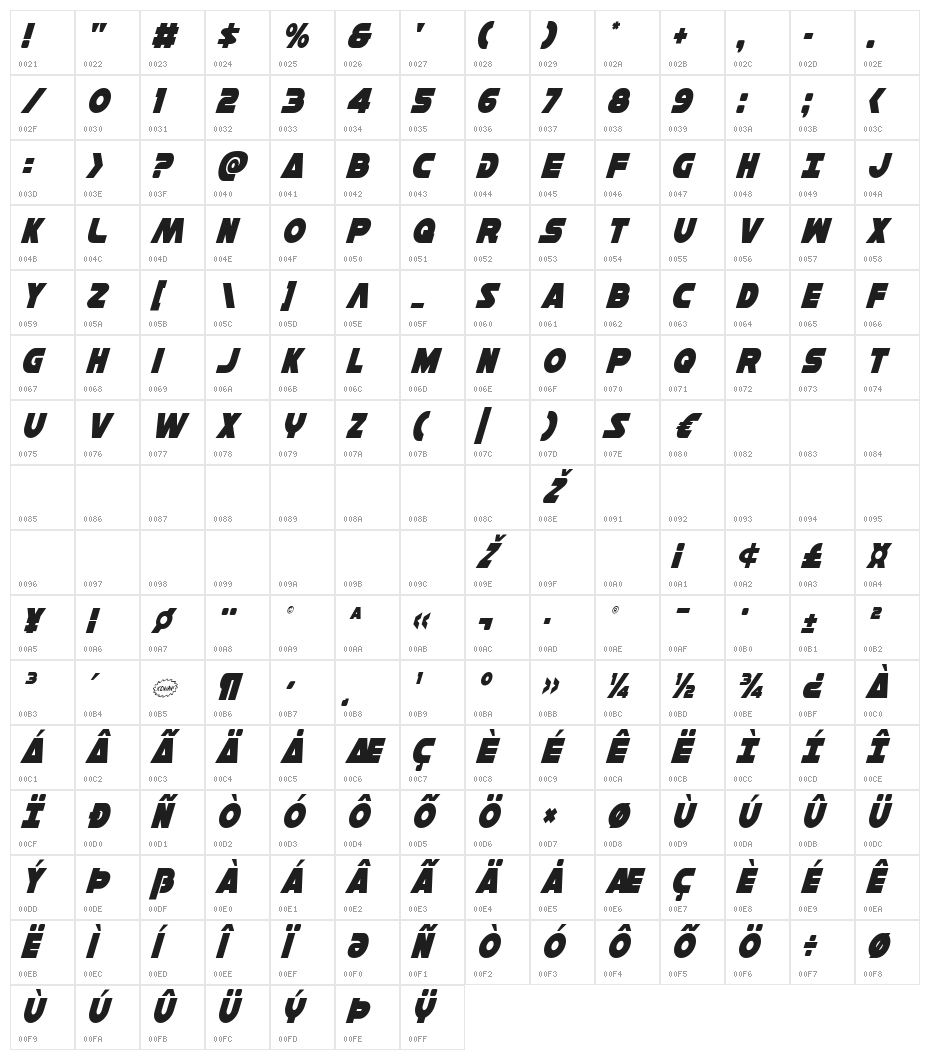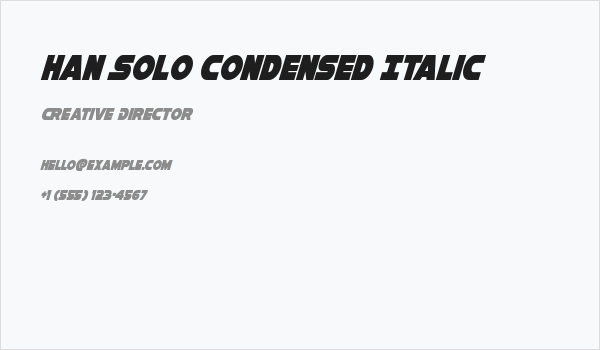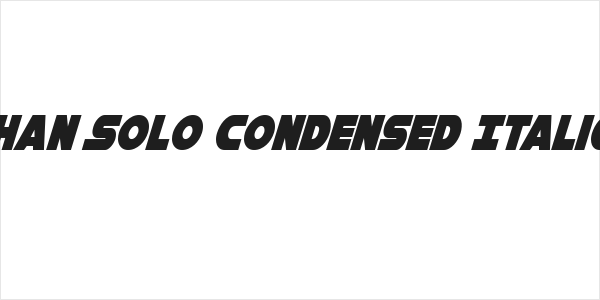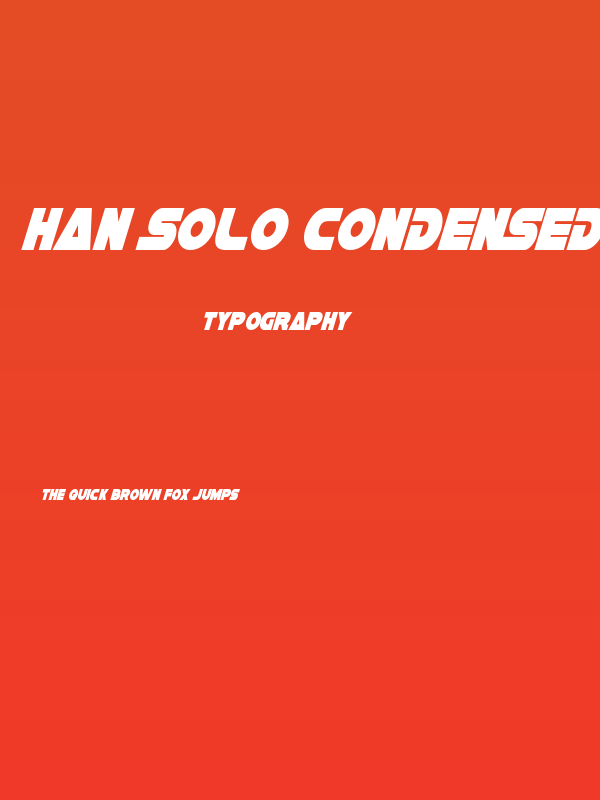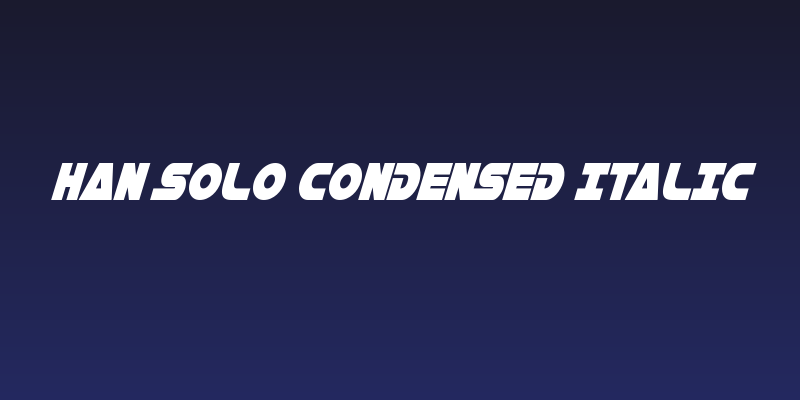
Han Solo Condensed Italic Font
Han Solo Condensed Italic Description
This font features a bold and dynamic style with a condensed and italicized form. The characters are designed with sharp angles and a futuristic appearance, giving it a strong and impactful presence. The uppercase and lowercase letters maintain a consistent slant, enhancing the italic effect. The numbers and special characters follow the same stylistic approach, ensuring uniformity across all glyphs. The bold weight and condensed width make it suitable for attention-grabbing headlines and titles. Its unique design elements make it stand out, ideal for projects that require a modern and edgy look.
| Overall Style | Futuristic, Modern |
| Proposed Projects | Ideal for sci-fi themed designs, movie posters, video game titles, and branding projects that require a modern and bold aesthetic. |